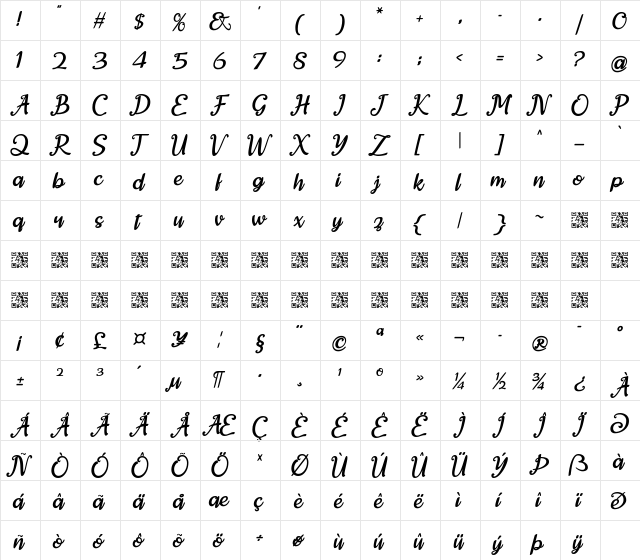
Agartha Regular
| Designer | Tri Kuncoro |
Design Context for Agartha Typeface
Agartha is a composed and adaptable typeface that performs quietly and consistently across a wide range of design contexts.